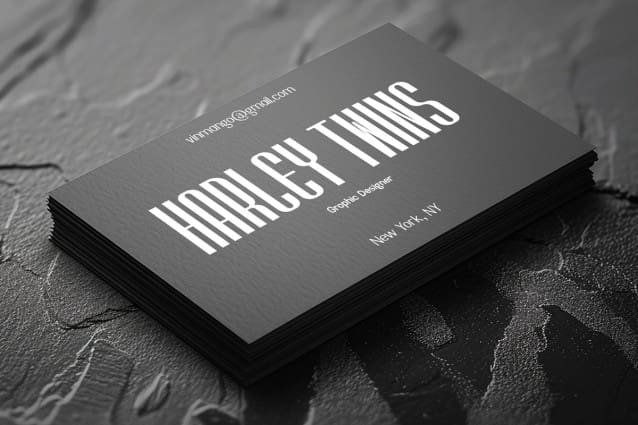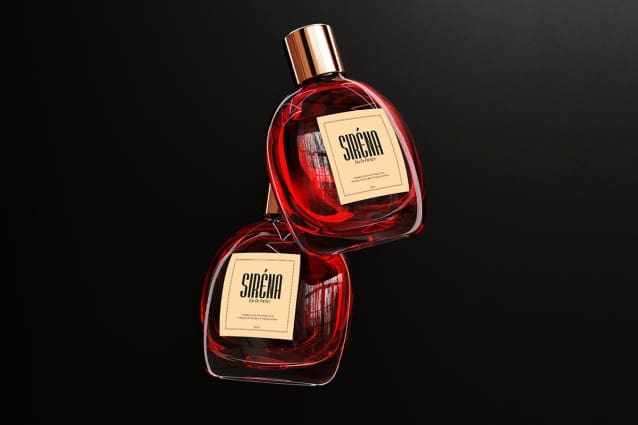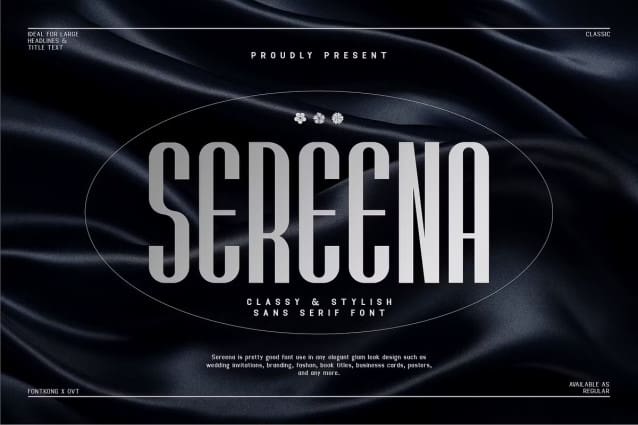
Sereena Font
Sereena Font, a sophisticated sans serif font that redefines elegance with every stroke. With its clean lines and stylish curves, Sereena exudes class and sophistication, making it the perfect choice for upscale design projects.
Crafted with meticulous attention to detail, Sereena strikes the perfect balance between timeless elegance and contemporary style. Whether you’re designing luxury branding, editorial layouts, or chic fashion materials, this font commands attention and leaves a lasting impression.
Featuring a full range of characters, including uppercase and lowercase letters, numbers, and punctuation marks, Sereena offers versatility and flexibility for all your creative needs. Its stylish demeanor and refined charm elevate your typography to new heights of sophistication.
Redesign elegance with every stroke using the classy and stylish Sereena font.